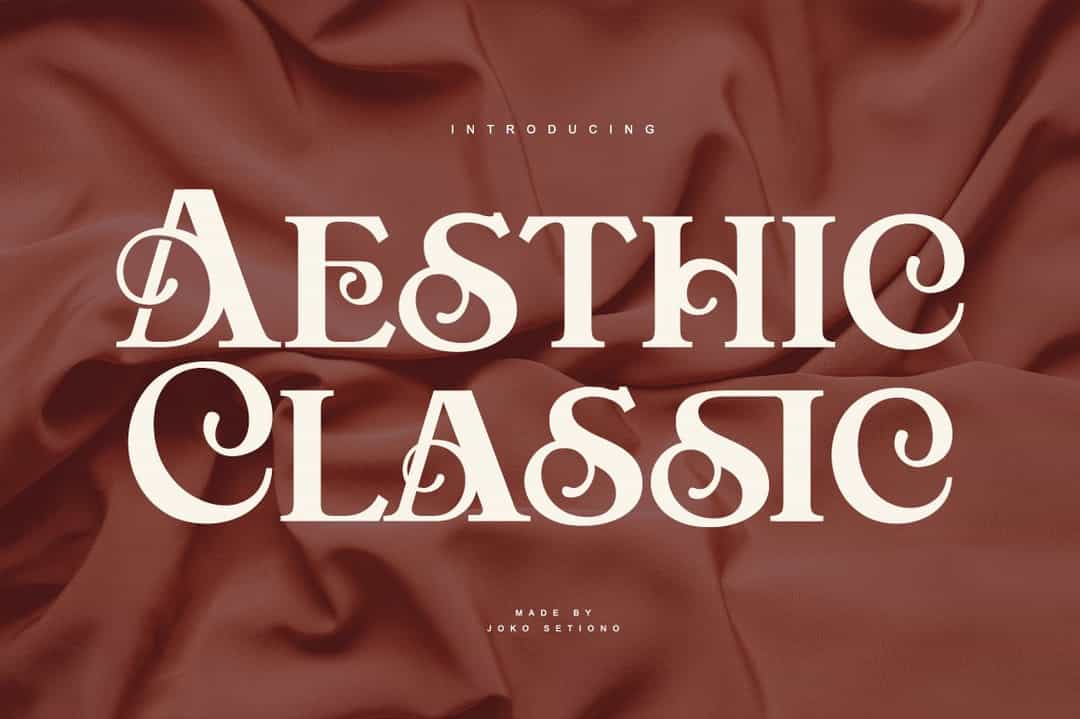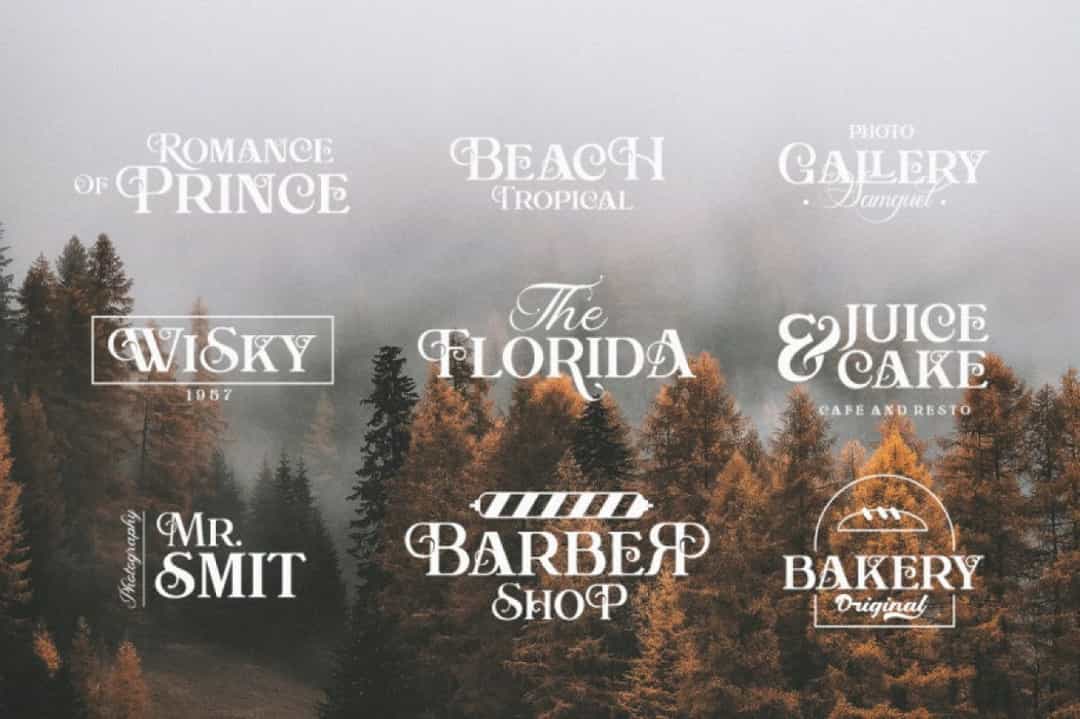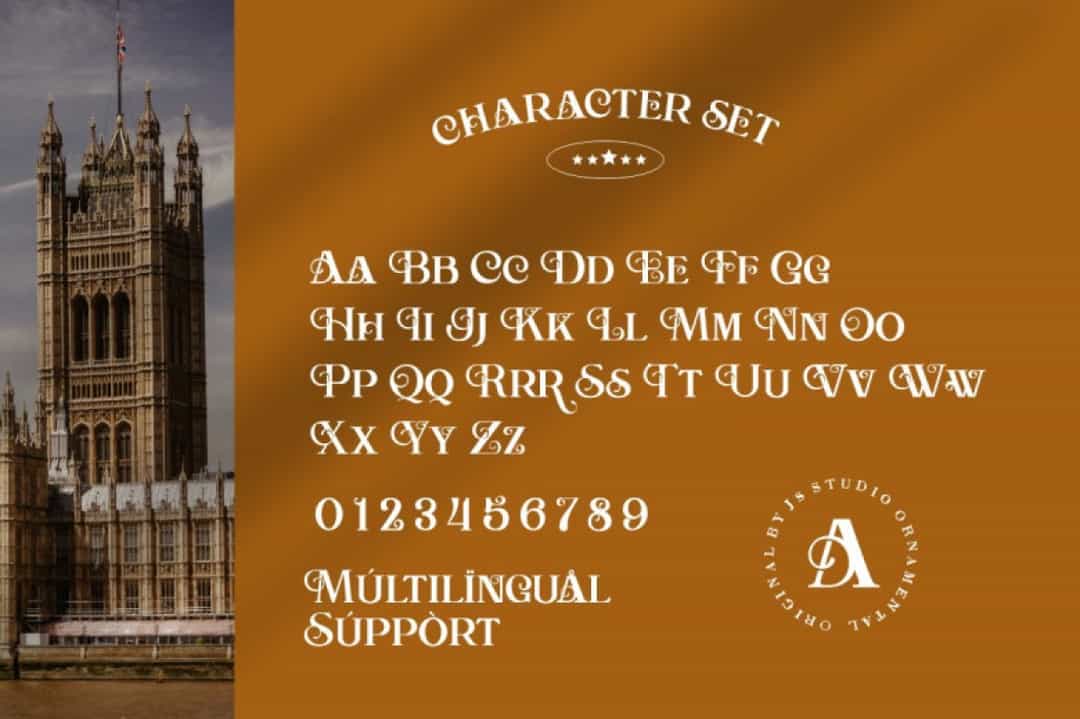
Aesthic Classic is an elegant serif typeface inspired by Old Victorian. Crafted with smooth curves for an effortlessly contemporary yet traditional aesthetic. Two weights are available; making this font suitable for logo branding, Valentine’s Day events and sublimation logos as well as magazine catalogs or T-shirt printing.